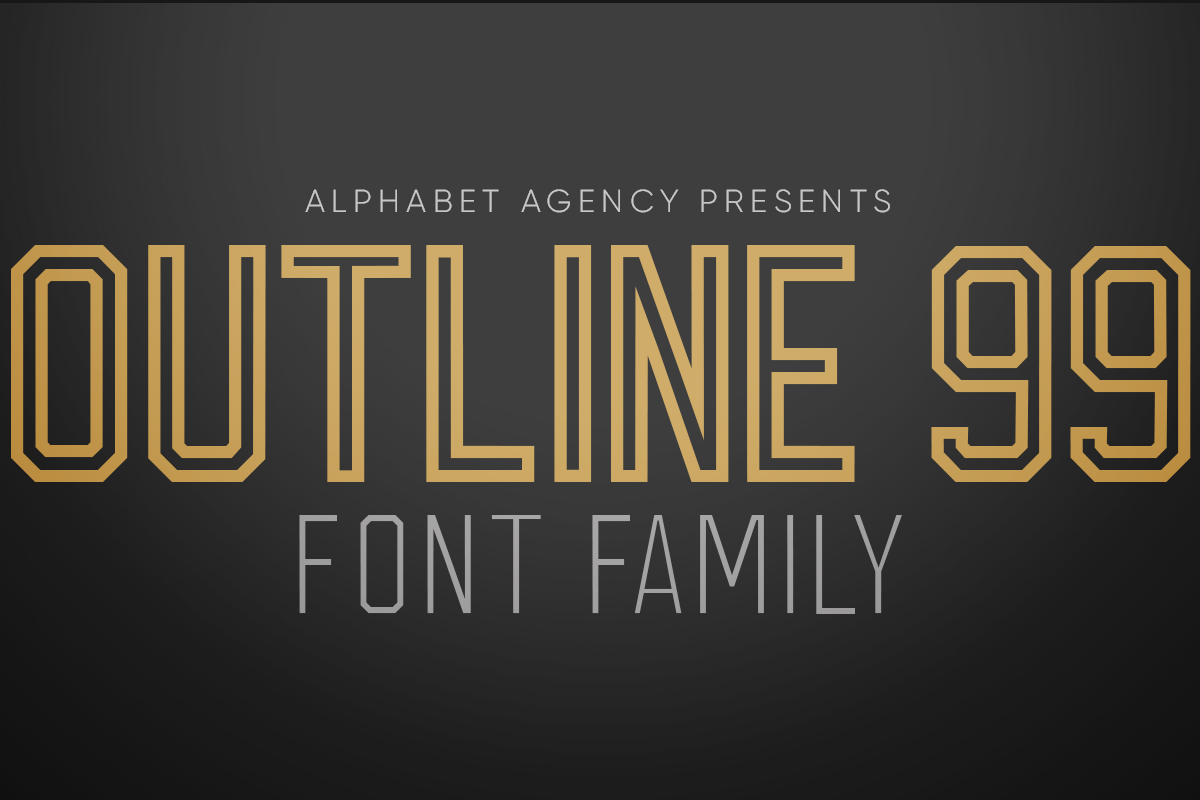
OUTLINE 99 FONT FAMILY (8 FONTS)
Outline 99 Font family contains 8 fonts: Outline 99 Italic Outline 99 Inner Italic Outline 99 Blockprint Italic Outline 99 Inner Blockprint Italic
The fonts are ideal for sports themed designs. They can be used to take a design to the next level and add a bit more sophistication and complexity to make your text really stand out from the crowd.
The font family offer various combinations that work together to can be used to create interesting varieties of color and texture. Whether you are looking to achieve a traditional, vintage, worn, or modern look or a cool mix - all can be achieved with this font family.